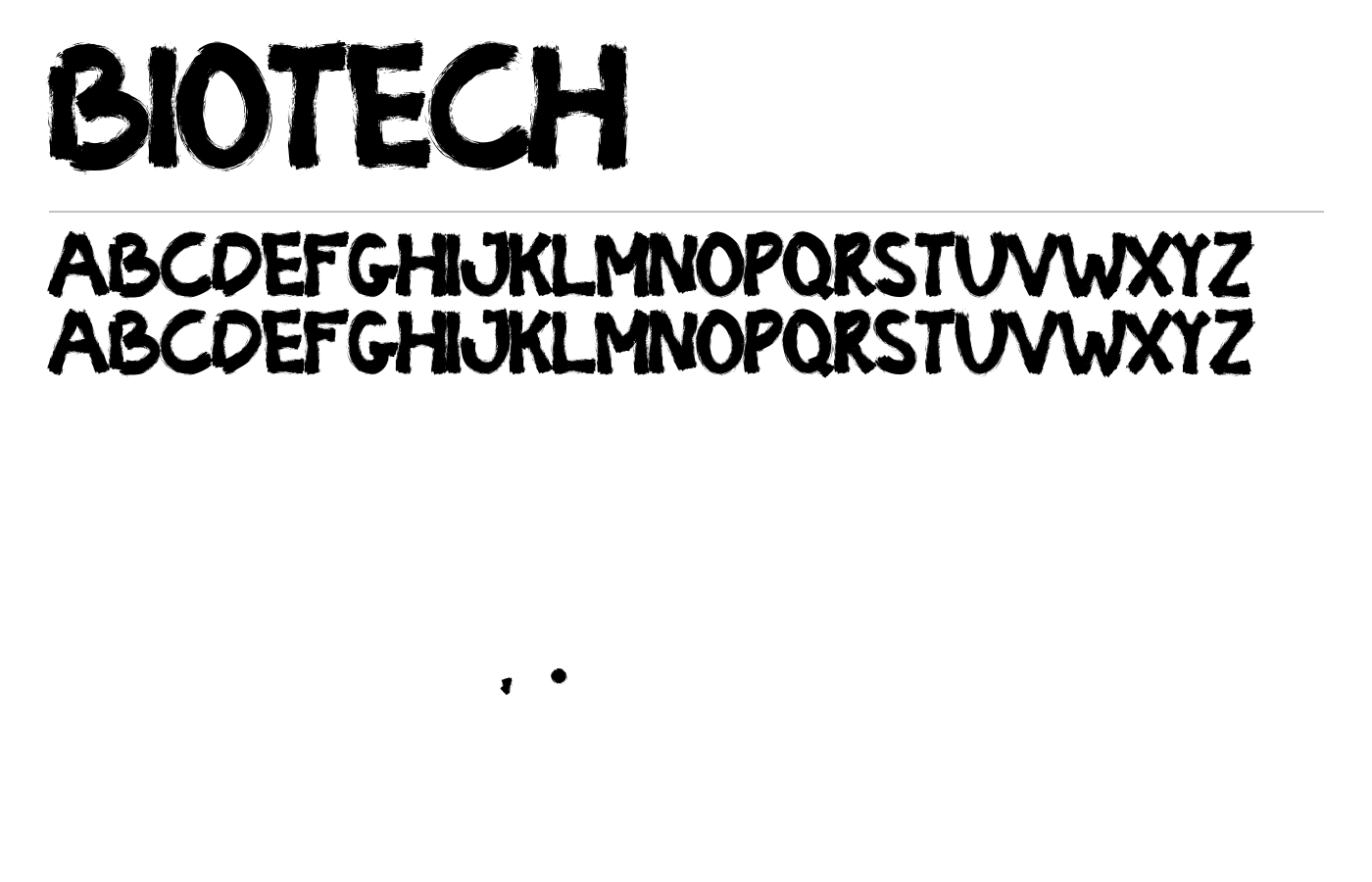
Biotech Brush is a bold, hand-painted brush font with rough, textured edges that give it a raw and energetic feel. Its uppercase letters feature irregular strokes that create a dynamic and informal look, making it ideal for creative, edgy designs like posters, logos, and packaging where a distinctive, handcrafted style is desired. This font works well for brands aiming to convey personality, creativity, and a casual, artistic vibe.
Biotech Brush Font
About Biotech Brush Font
| Font family | Biotech Brush Font |
| Designer | Monotyperstudio |